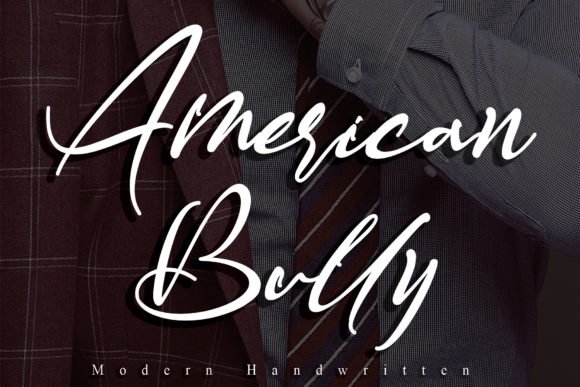
The Perfect Blend of Magic and Elegance: Introducing the American Bully Font
Have you ever sat down with a blank canvas or a blank page, eager to bring your creative idea to life? The thrill of the unknown, the rush of inspiration, and the satisfaction of watching your vision take shape – it’s a feeling like no other. For designers and crafters, this moment is what drives us to create, to innovate, and to push the boundaries of what’s possible.
That’s where the American Bully Font comes in – a magical handwritten font that adds a touch of elegance to any project. With its unique look and feel, this font is the perfect companion for designers seeking to create standout designs. Whether you’re crafting a wedding invitation, designing a logo, or simply adding a personal touch to a handmade card, the American Bully Font is sure to bring your ideas to life in a way that’s both beautiful and unique.
Key Features of American Bully Font
- Font Style: The American Bully Font is a bold, modern script font, perfect for adding a touch of ruggedness to your designs.
- Unique Characteristics: The font features a unique, hand-drawn feel with subtle imperfections, giving it a distinctive and authentic look.
Designer Review: American Bully Font
As a designer, I was excited to dive into the American Bully Font and see what it had to offer. Here’s my honest take:
- ✨ Unique and bold design that stands out from the crowd – perfect for making a statement
- ✨ Strong and bold lines that add to the overall intensity of the font
- ✨ Great for use in sports and fitness branding, as well as other high-energy niches
- ⚠️ Limited flexibility – may not be suitable for use in smaller or more subtle contexts
- ⚠️ Can be overwhelming if used in large quantities or as a body font
- ⚠️ Not ideal for use in professional or corporate settings where a more refined aesthetic is desired
The American Bully Font is a bold and attention-grabbing choice that’s perfect for making a statement. While it may not be suitable for every project or context, it’s a great option for those looking to add some intensity and energy to their design. With careful consideration and use, this font can be a real showstopper.
Use the font for headings or titles to add a touch of elegance to your designs.
The American Bully Font is ideal for:
– Designing dog-themed merchandise or accessories.
– Creating streetwear or urban-inspired graphics.
– Adding a touch of edginess to your branding or marketing materials.